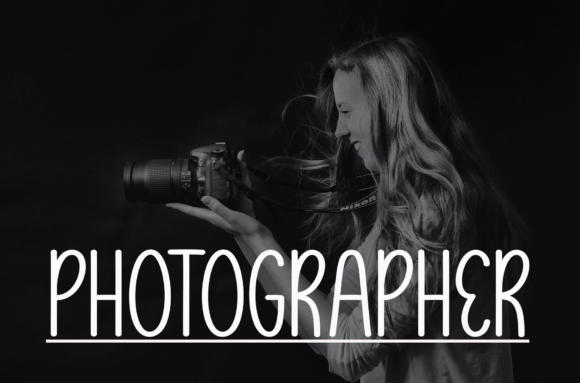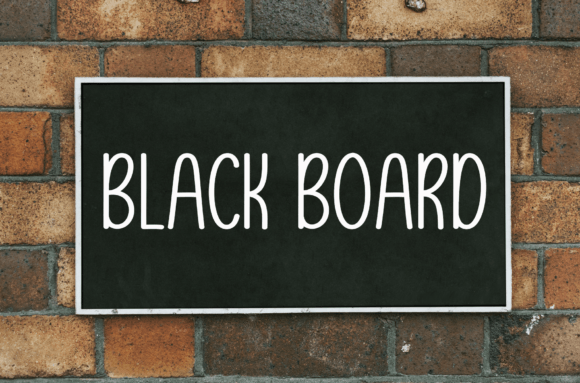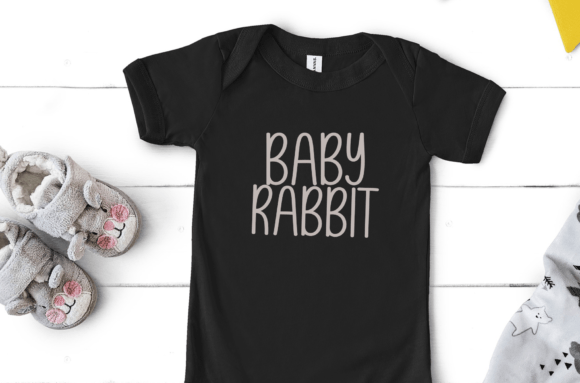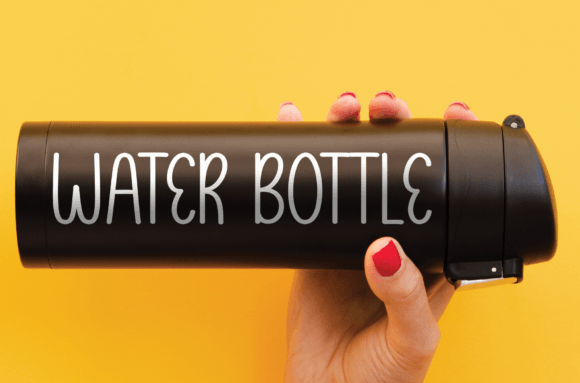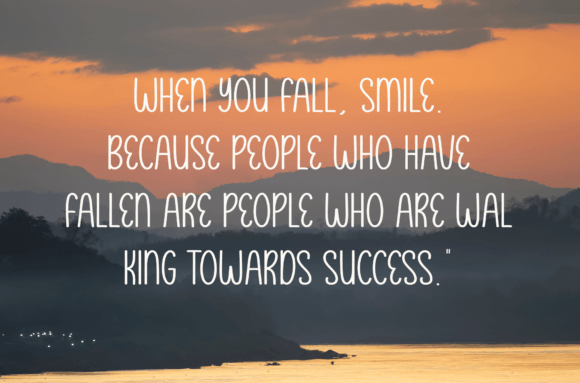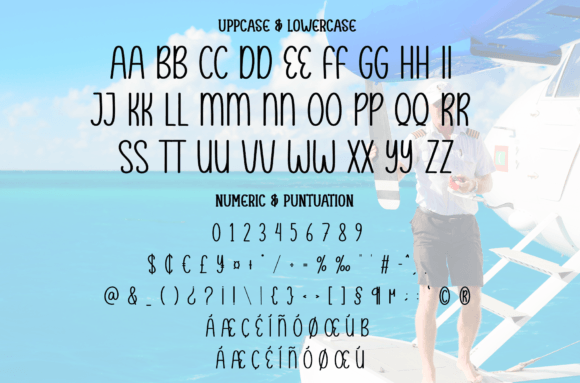
The Perfect Font for Your Next Design Project: Airplane Pilots
I’ll never forget the time I was working on a wedding invitation design for a friend’s big day. I had the perfect layout, the ideal color scheme, and a beautiful image to tie it all together. But, I was stuck on one thing: the font. I wanted something that would convey the joy and playfulness of the occasion, but still look elegant and sophisticated. That’s when I stumbled upon Airplane Pilots, a sweet and friendly handwritten font that instantly caught my eye.
Airplane Pilots is a fresh and neat font that’s ideal for writing wedding invitations, cards, or any other design that might need a fun touch! In this article, I’ll share my honest review of the font, provide a practical guide on how to use it, and explore some similar fonts you might love.
- ✨ Airplane Pilots is incredibly easy to read, even at small sizes.
- ✅ The font has a lovely, consistent flow that’s perfect for body text.
- ✅ The characters are well-spaced, making it ideal for use in digital and print designs.
- ✨ The font has a range of OpenType features, including stylistic alternates and glyphs.
- ⚠️ Some of the characters, like the lowercase ‘g’ and ‘y’, have a slightly quirky design that might not appeal to everyone.
- ⚠️ The font doesn’t have a huge range of weights, so it might not be the best choice for designs that require a lot of variation.
The Story Behind Airplane Pilots: A Designer Inspiration
Airplane Pilots was designed by a talented font designer who wanted to create a font that was both fun and elegant. The designer was inspired by the classic typography of vintage airline posters and the friendly, approachable feel of handwritten fonts. The result is a font that’s perfect for designs that need a touch of whimsy and personality.
Q: Is Airplane Pilots suitable for body text?
A: Absolutely! Airplane Pilots is a highly legible font that’s perfect for use in body text.
Q: Is Airplane Pilots available in different weights?
A: Airplane Pilots has a limited range of weights, but it’s still a versatile font that can be used in a variety of designs.